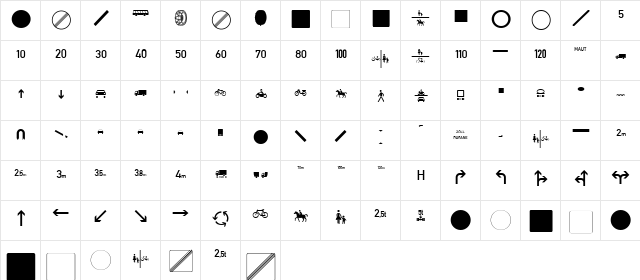
Zeichen Zweihundert Regular
Zeichen Zweihundert is a composed and adaptable typeface that performs quietly and consistently across a wide range of design contexts.